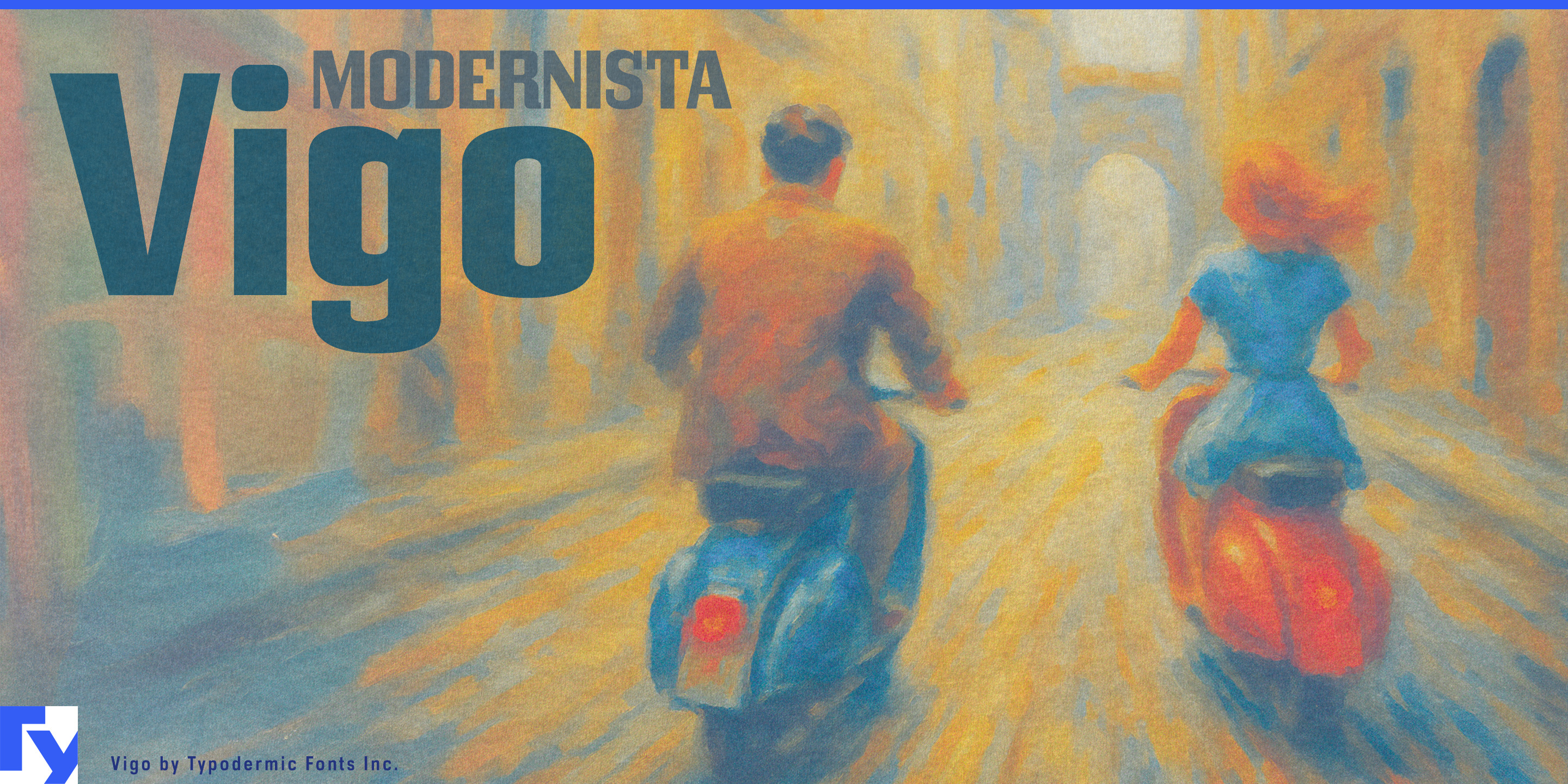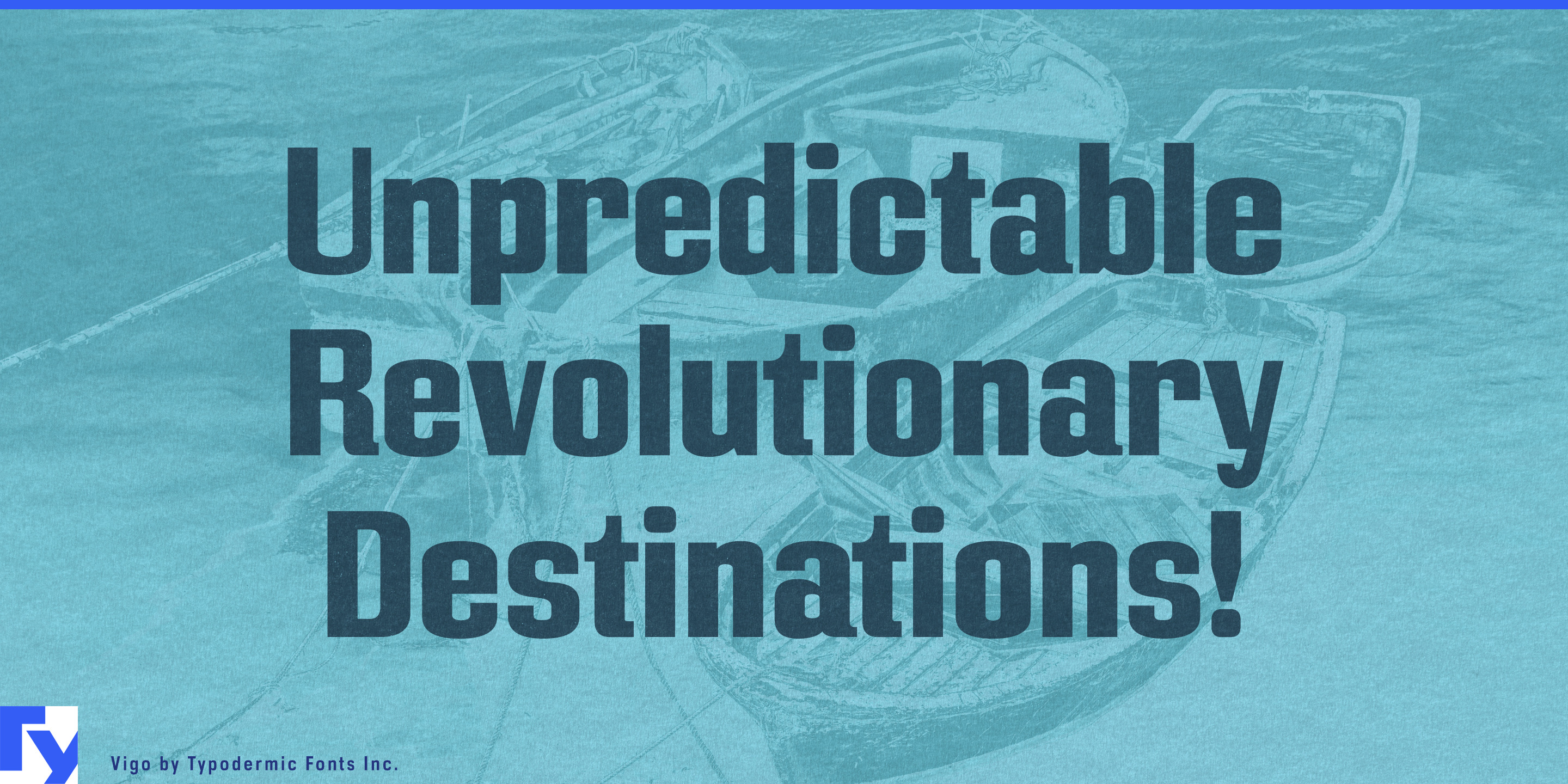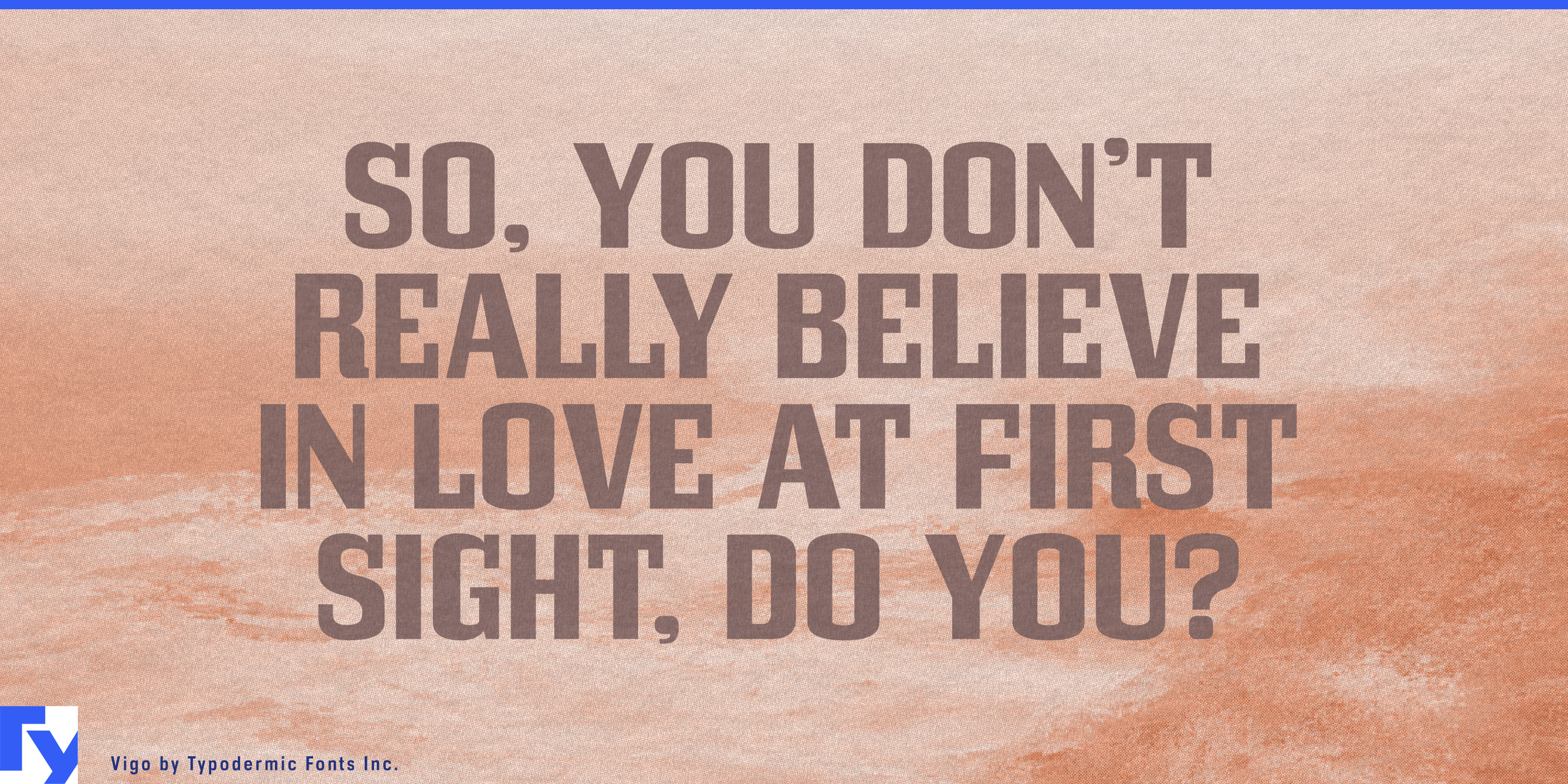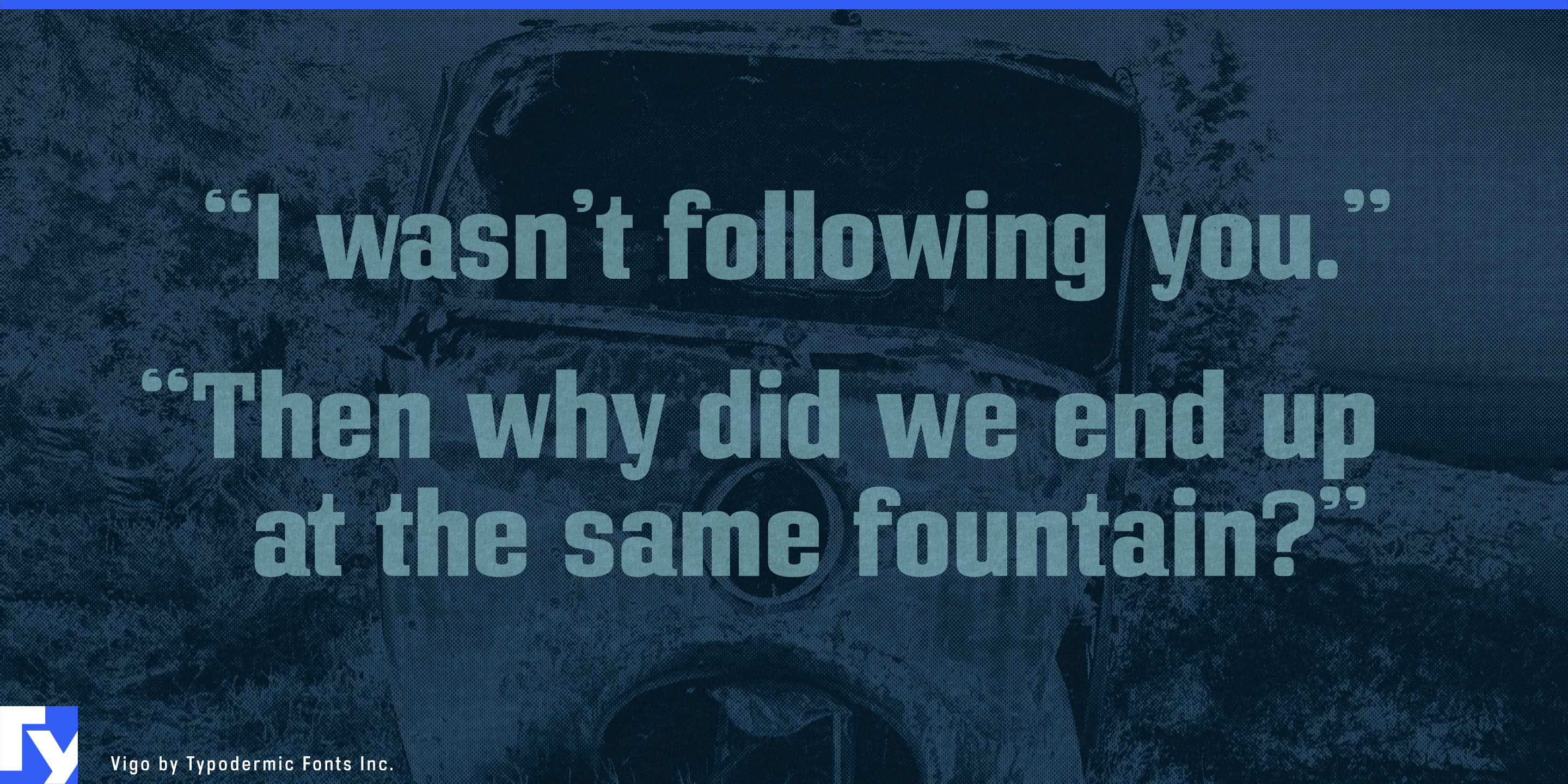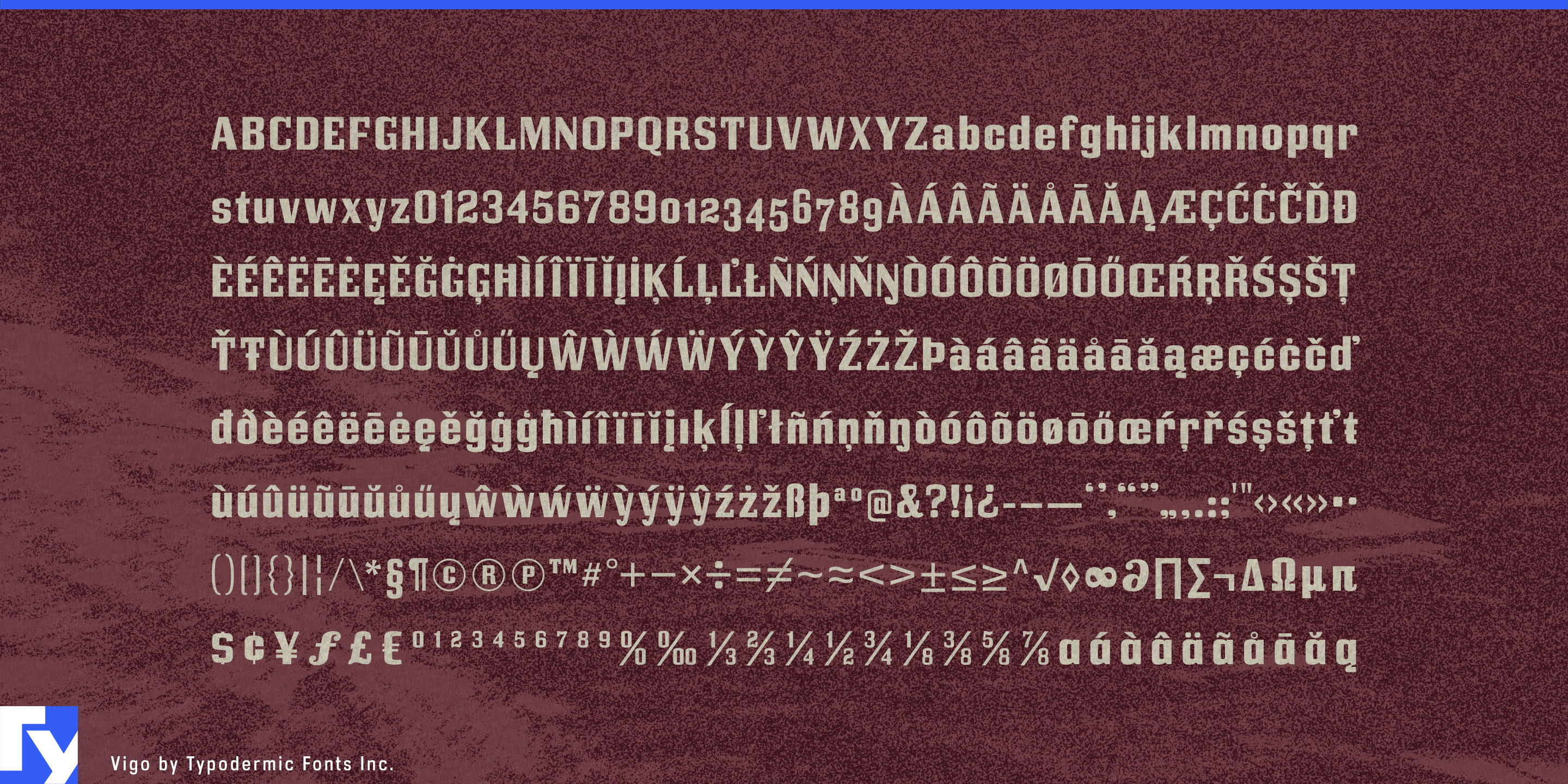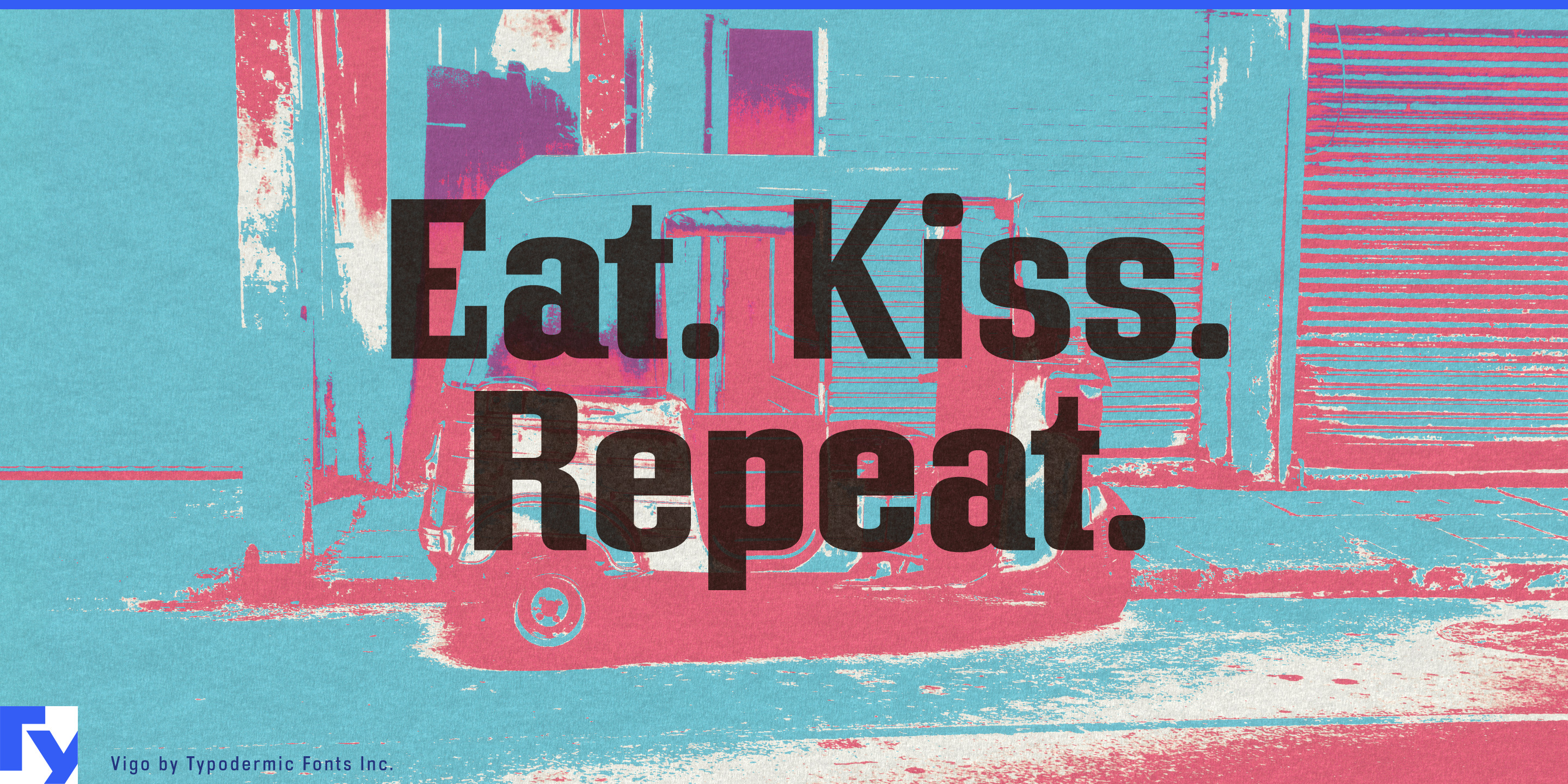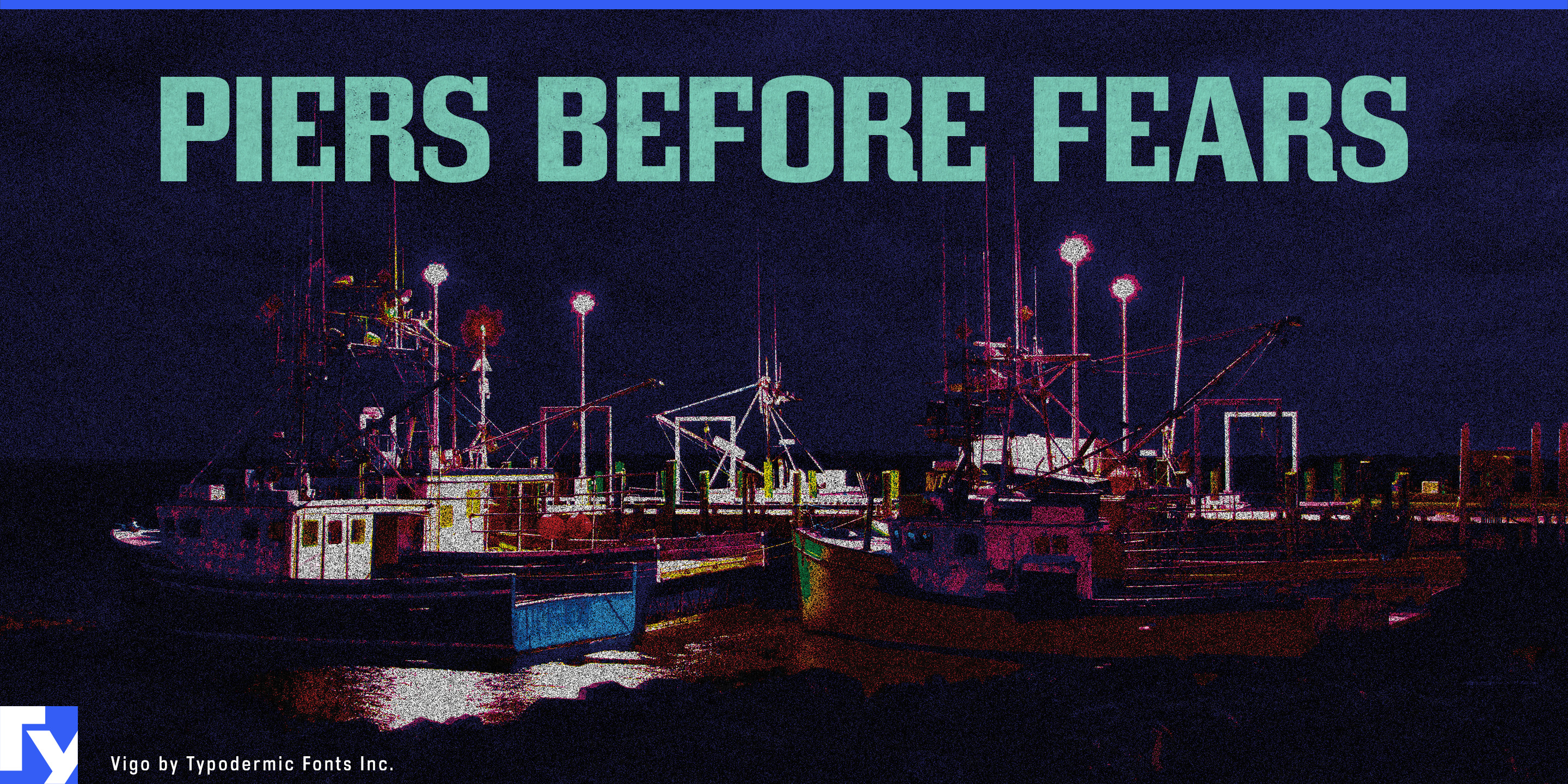
Vigo
Industrial equipment used to operate behind fences. Increasingly, compact working machines share sidewalks, cycle lanes, loading zones, and neighborhood streets with the people they serve. That creates an unusual branding problem. The typography needs enough weight to make an e-cargo bike, delivery robot, or municipal utility vehicle look dependable, but conventional industrial lettering can make small public-facing machines feel needlessly aggressive. Vigo combines a sturdy, square underlying structure with softened corners, rounded curves, and open counters, giving working equipment a substantial voice without pushing it toward military hardware.
Urban delivery vehicles are a particularly natural fit. Electric cargo bikes, delivery mopeds, compact commercial EVs, and other right-sized fleet vehicles need product names and service identities that work on cargo boxes, battery housings, side panels, dealer displays, and launch campaigns. Vigo’s compact proportions help substantial names fit into limited spaces, while its softened forms keep the result approachable enough for vehicles that spend their working lives among pedestrians, cyclists, shopfronts, and customers.
Autonomous neighborhood delivery robots sharpen the same problem. These machines need to look capable and trustworthy without appearing threatening as they move through sidewalks, bike lanes, driveways, and public plazas. Vigo can handle robot-family names, fleet graphics, service-zone campaigns, charging-station headers, and demonstration-event typography while a quieter sans serif carries screens, instructions, and operational information.
Neighborhood logistics hubs provide a larger environment for the same identity. Microhubs that transfer parcels from vans to cargo bikes and other last-mile vehicles need bay numbers, charging areas, rider zones, pickup points, local-route graphics, and exterior signage. Vigo can give these spaces enough industrial presence to feel functional while remaining appropriate to their neighborhood scale.
The same balance suits compact electric street sweepers, grounds-maintenance vehicles, sidewalk inspection robots, park-service machines, and other civic equipment operating at walking distance from the public. Model names, fleet markings, municipal pilot-program graphics, equipment demonstrations, and service-area headings can look practical without turning every vehicle into heavy industry.
Vigo works best for machinery that has to look competent without looking hostile. Its blocky foundation gives compact vehicles and equipment enough physical presence; softened corners and rounded forms temper that strength for products operating in shared public environments.